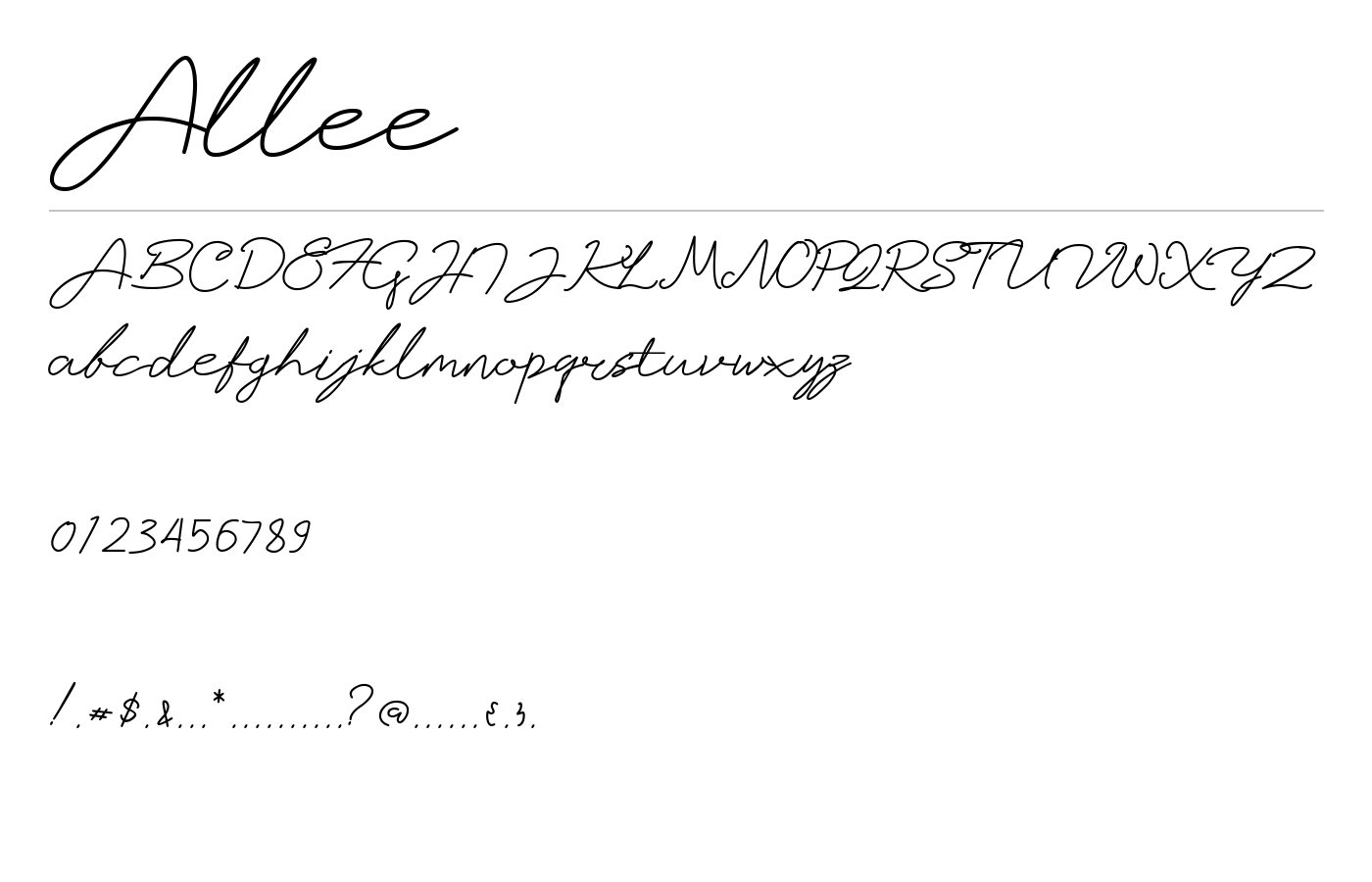
Allee is an elegant handwritten script font characterized by its delicate, flowing strokes and light weight. Its refined, cursive letterforms create a graceful and personal feel, making it ideal for invitations, branding, and creative projects that seek a sophisticated yet approachable touch. This font works well when you want to convey charm and artistry with a modern calligraphic style.
Allee Font
About Allee Font
| Font family | Allee Font |
| Designer | Gigih Wiryana |